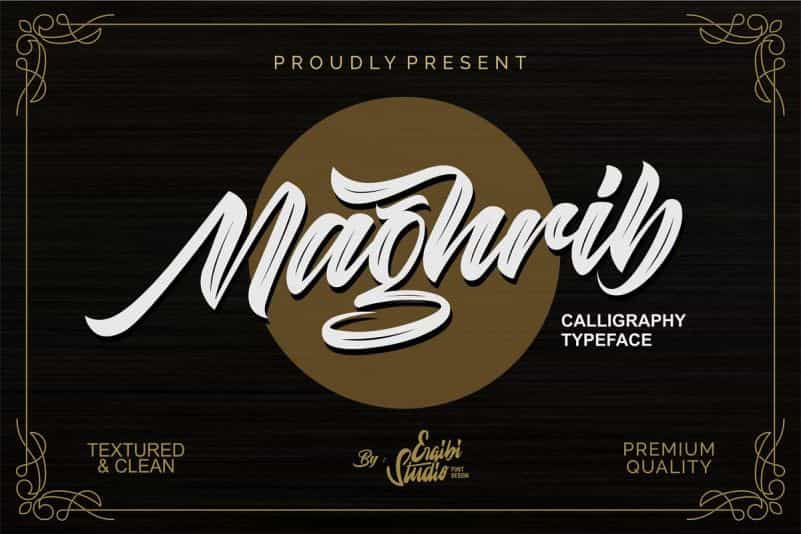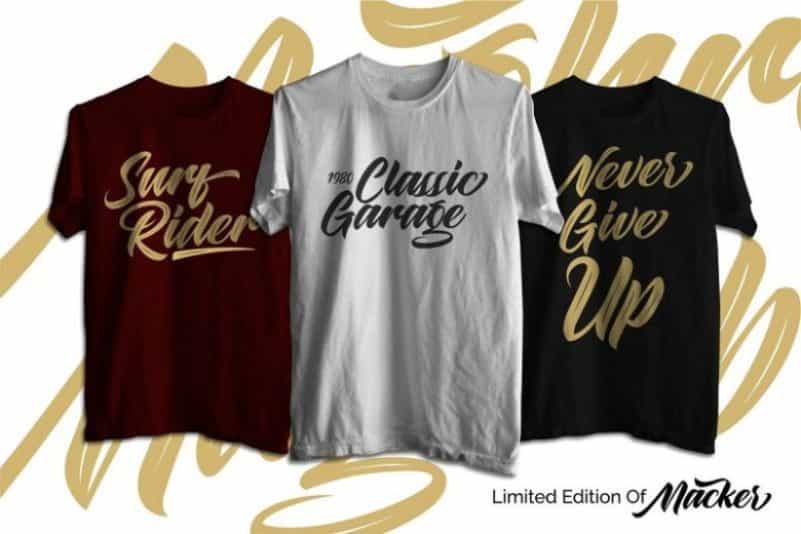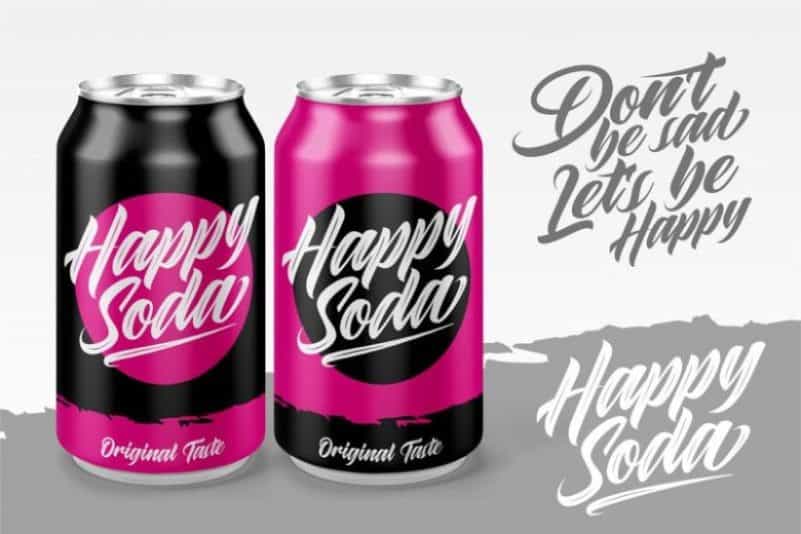
Introducing Maghrib Calligraphy Typeface! from our collection, made with care and full, from this font two clean shapes and textures and have additional swash. This font can be used for logo identification, badge, apparel, product packaging, headline, T shirt/apparel, poster, or anything with calligraphy.